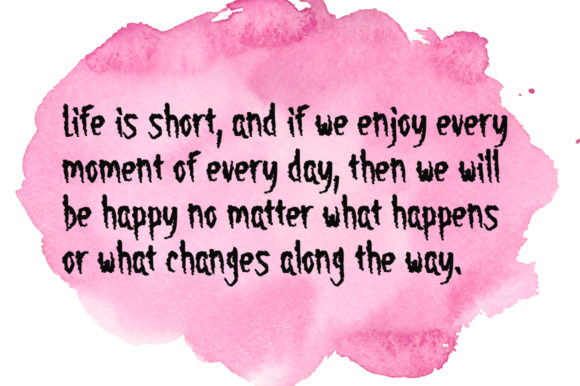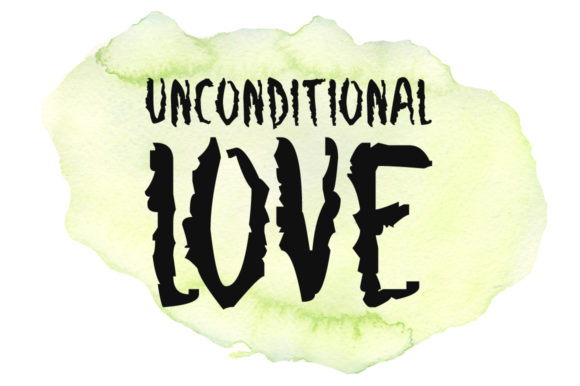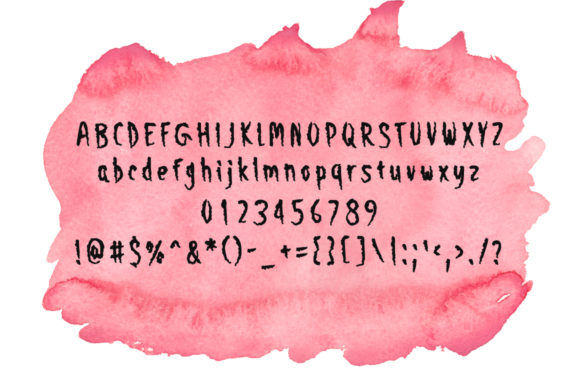
Introducing Detached Font: The Cute and Grungy Display Font with Personality
Are you tired of using the same old fonts in your design projects? Do you want to add a unique twist to your creations and make them stand out from the crowd? Look no further than Detached Font, a cute and grungy display font that’s sure to bring personality to your designs.
What is Detached Font?
Detached Font is a display font that’s perfect for designers and crafters who want to add a touch of whimsy and charm to their projects. This font is characterized by its distressed, grungy texture and adorable letterforms that are sure to capture attention. Whether you’re working on a logo, poster, or social media graphic, Detached Font is the perfect choice.
Key Features of Detached Font
- Cute and Grungy Design: Detached Font features a unique blend of cute and grungy elements, making it perfect for designers who want to add a touch of personality to their projects.
- Highly Legible: Despite its distressed texture, Detached Font is highly legible, making it perfect for use in a variety of design projects, from headlines to body copy.
- Versatile: Detached Font can be used in a wide range of design projects, from logos and posters to social media graphics and more.
Who is Detached Font for?
Detached Font is perfect for designers and crafters who want to add a unique touch to their projects. This font is ideal for:
- Graphic Designers: Whether you’re working on a logo, poster, or social media graphic, Detached Font is a great choice.
- Crafters: If you’re a crafter who loves to create handmade cards, scrapbook pages, and other paper crafts, Detached Font is a great addition to your font collection.
- Small Business Owners: If you’re looking for a unique font to use in your branding, Detached Font is a great choice.
Tips for Using Detached Font
- Use it as a Headline Font: Detached Font is perfect for use as a headline font, adding a touch of personality and whimsy to your designs.
- Pair it with Other Fonts: Detached Font pairs well with a variety of other fonts, making it easy to create visually interesting designs.
- Experiment with Different Colors: Detached Font looks great in a variety of colors, from bold and bright to muted and pastel.